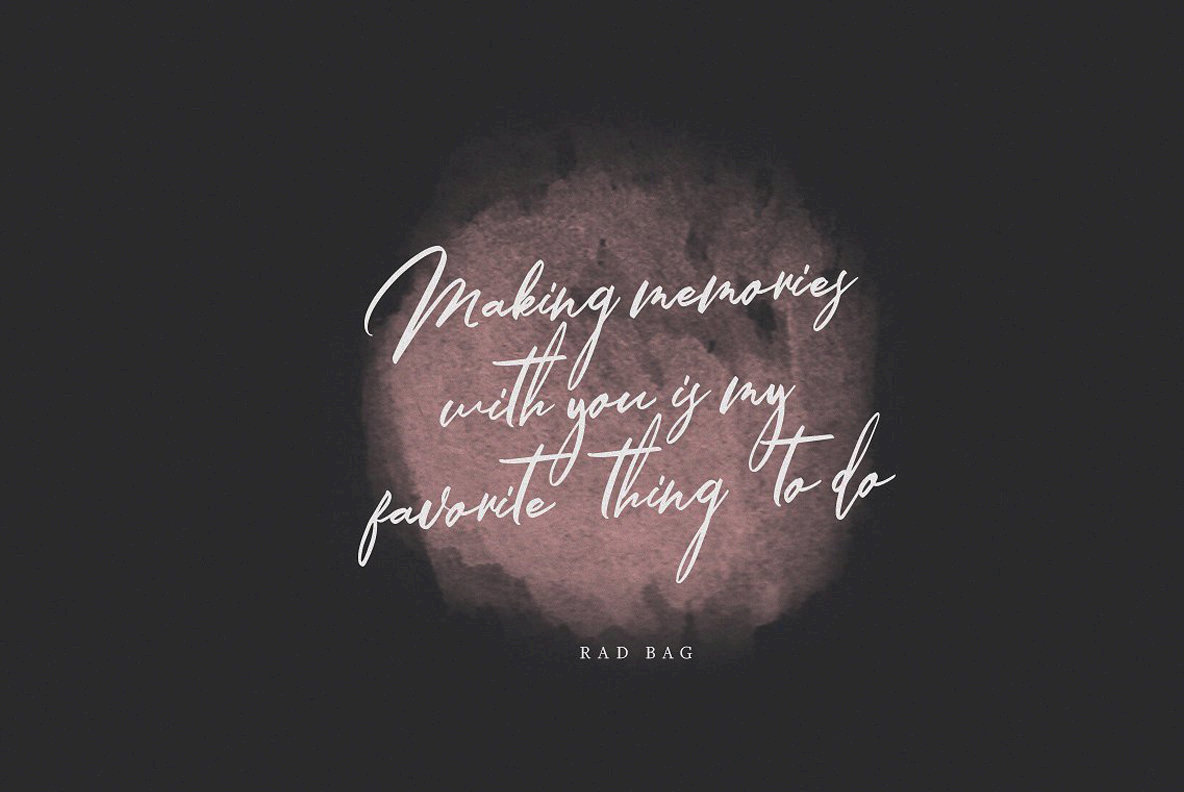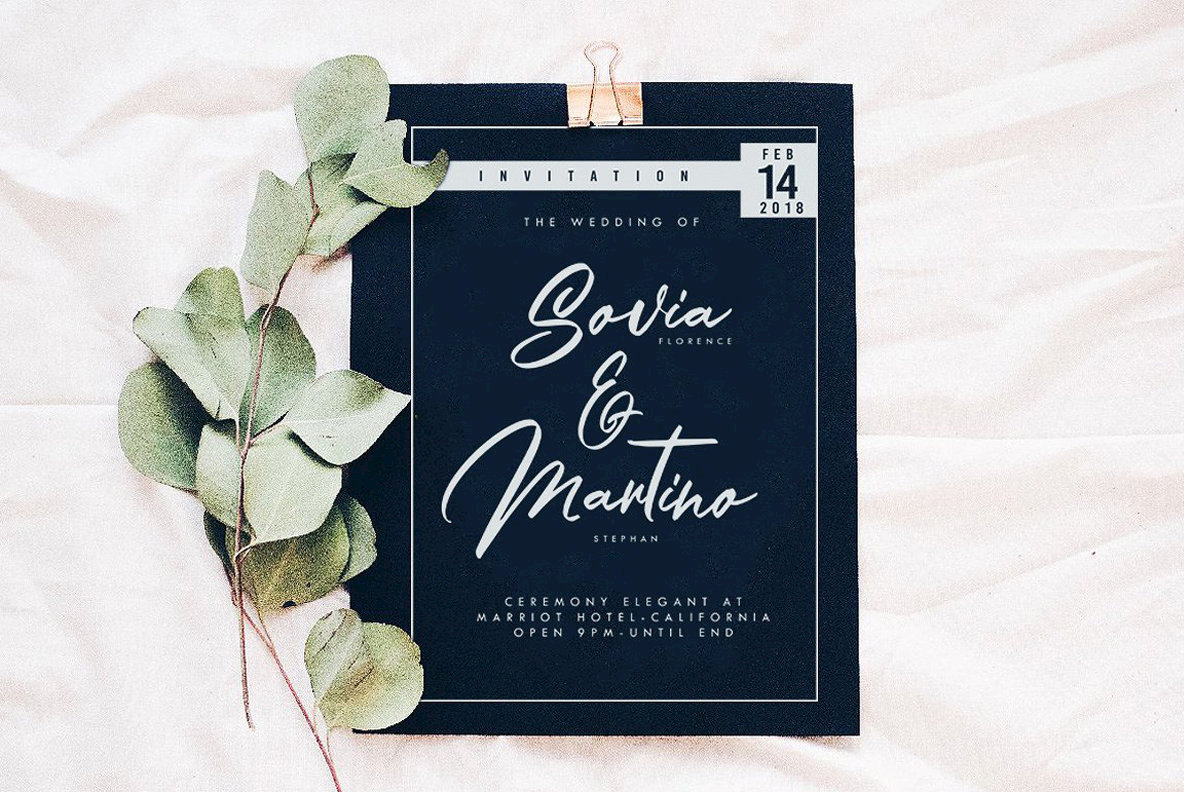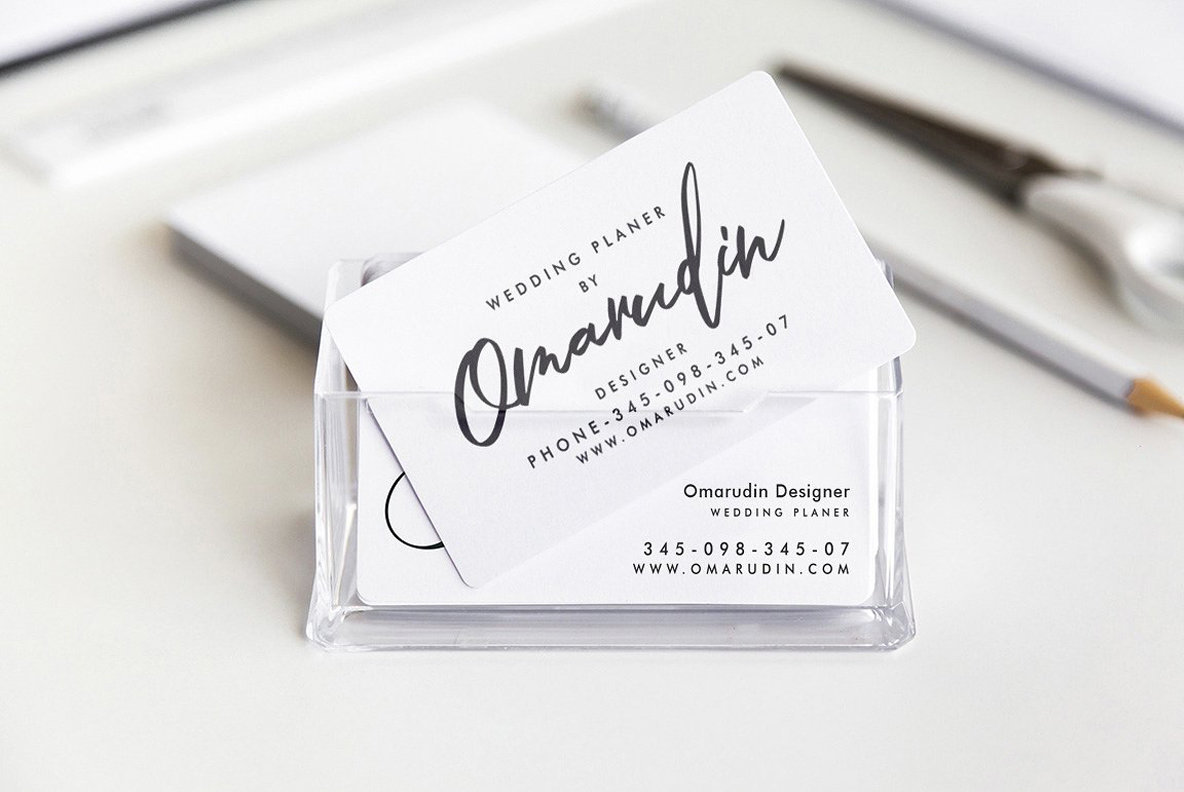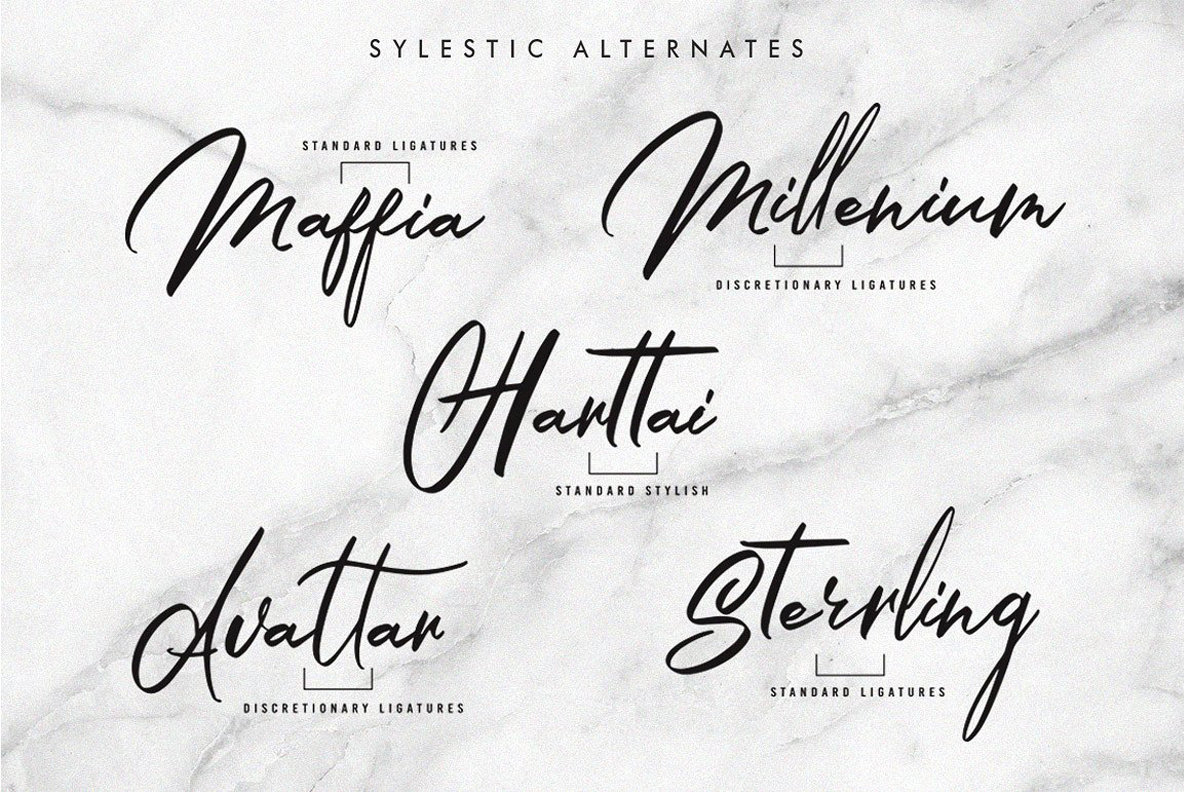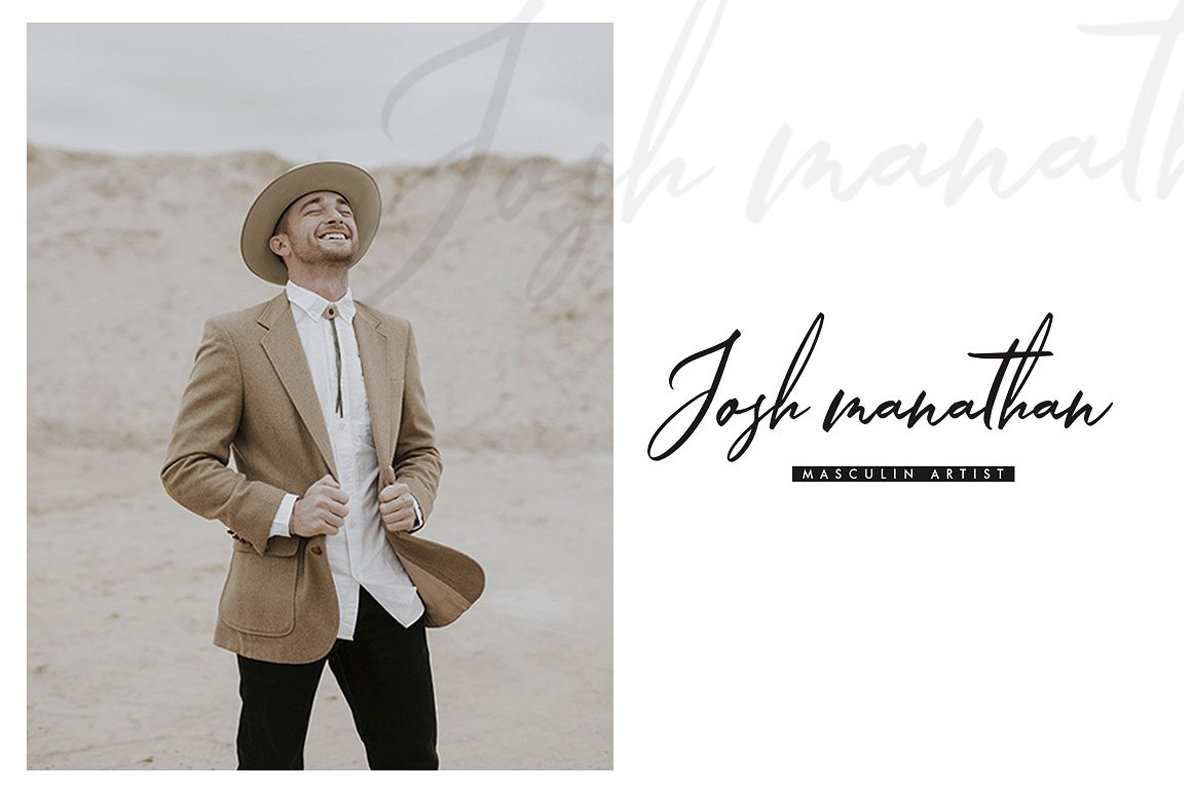
Macquina Font
Macquina
Macquina comes with the whole package! It's got a fresh signature font with ligatures for that handwritten feel..This one should make your designs instantly professional and jaw-dropping! Be a perfect professional in a minute and start creating modern designs like ads, sales, logos, branding, posters, social media text overlays today!
- Standard ligatures
- Discretionary Ligatures